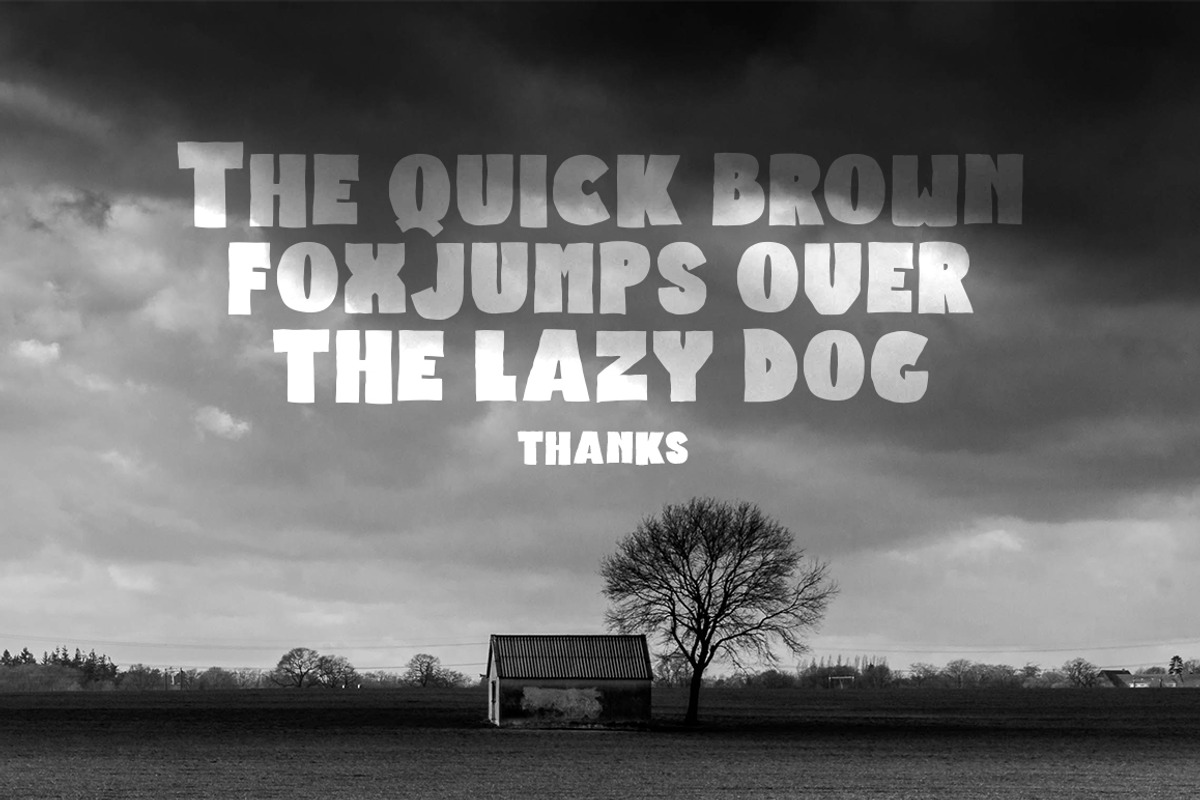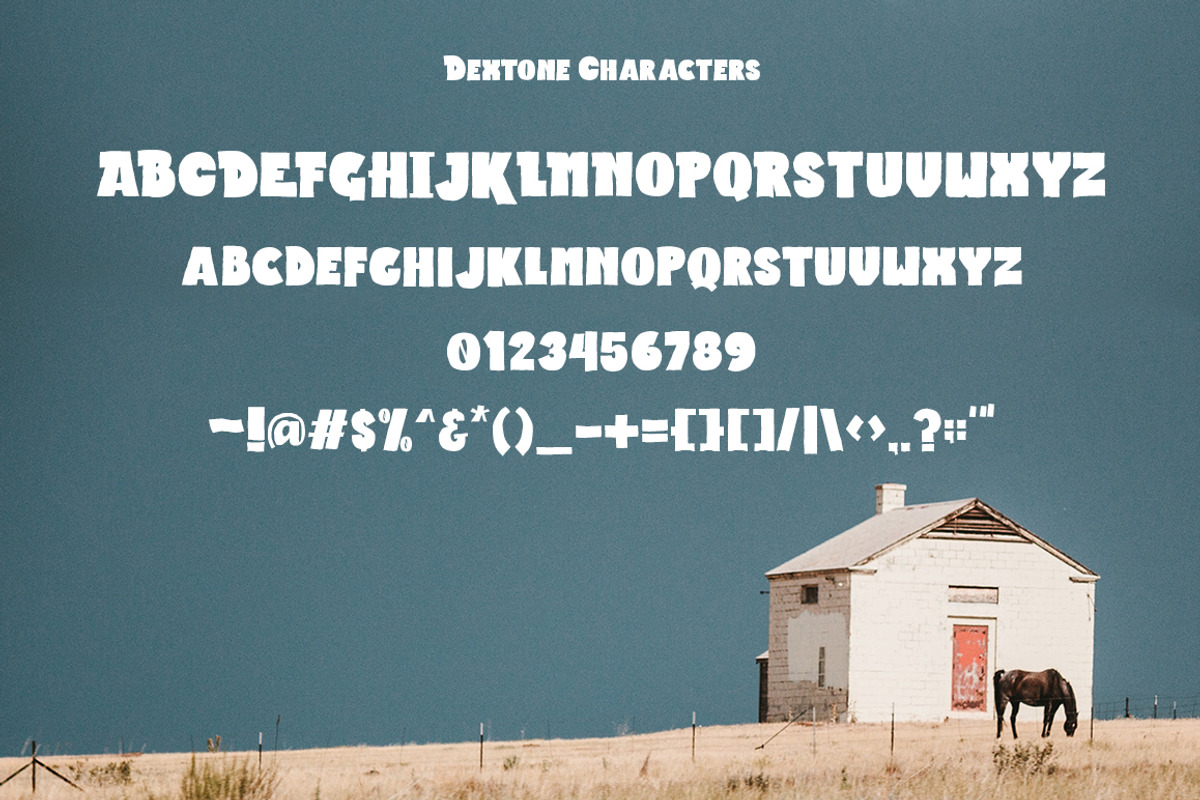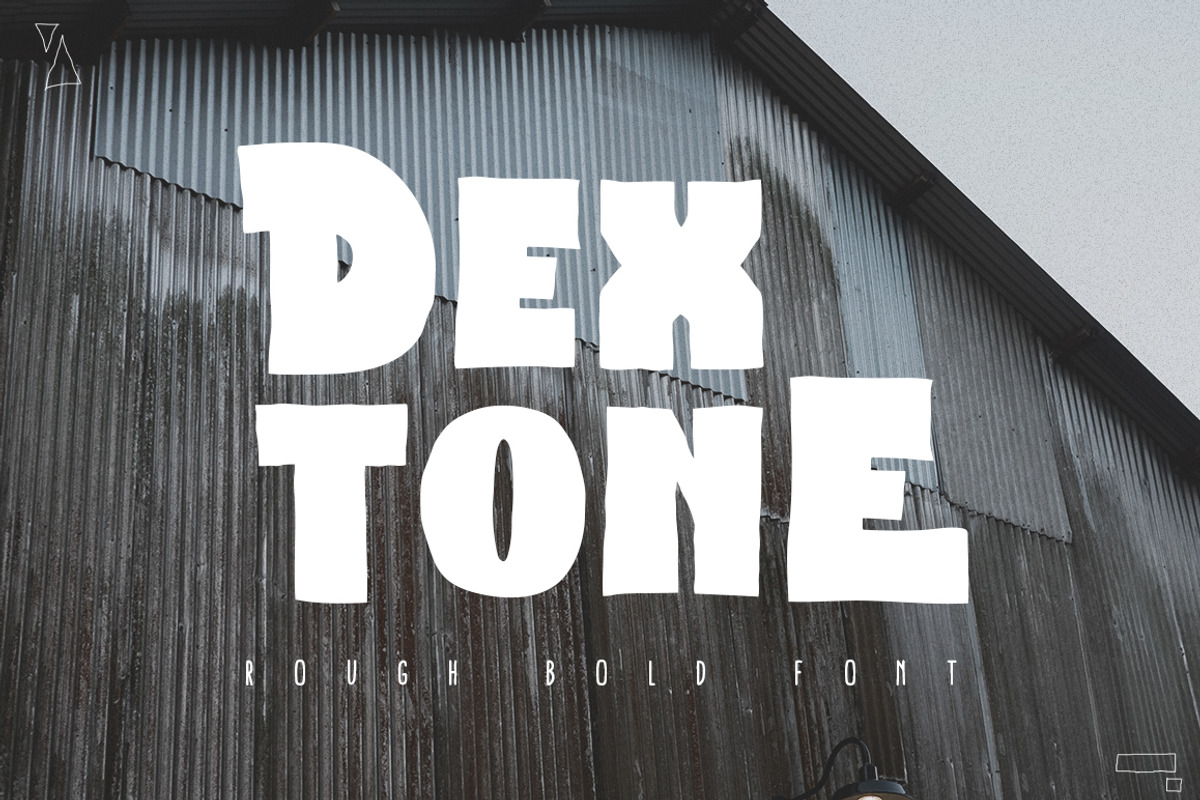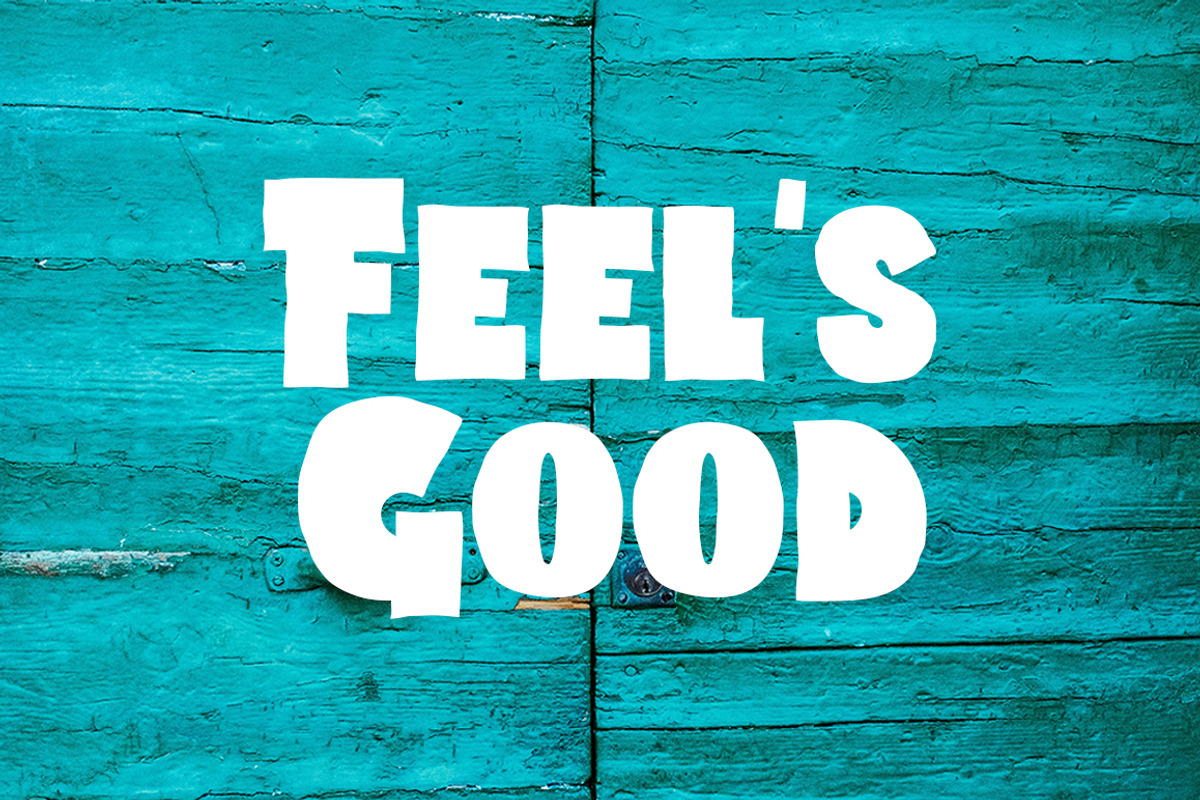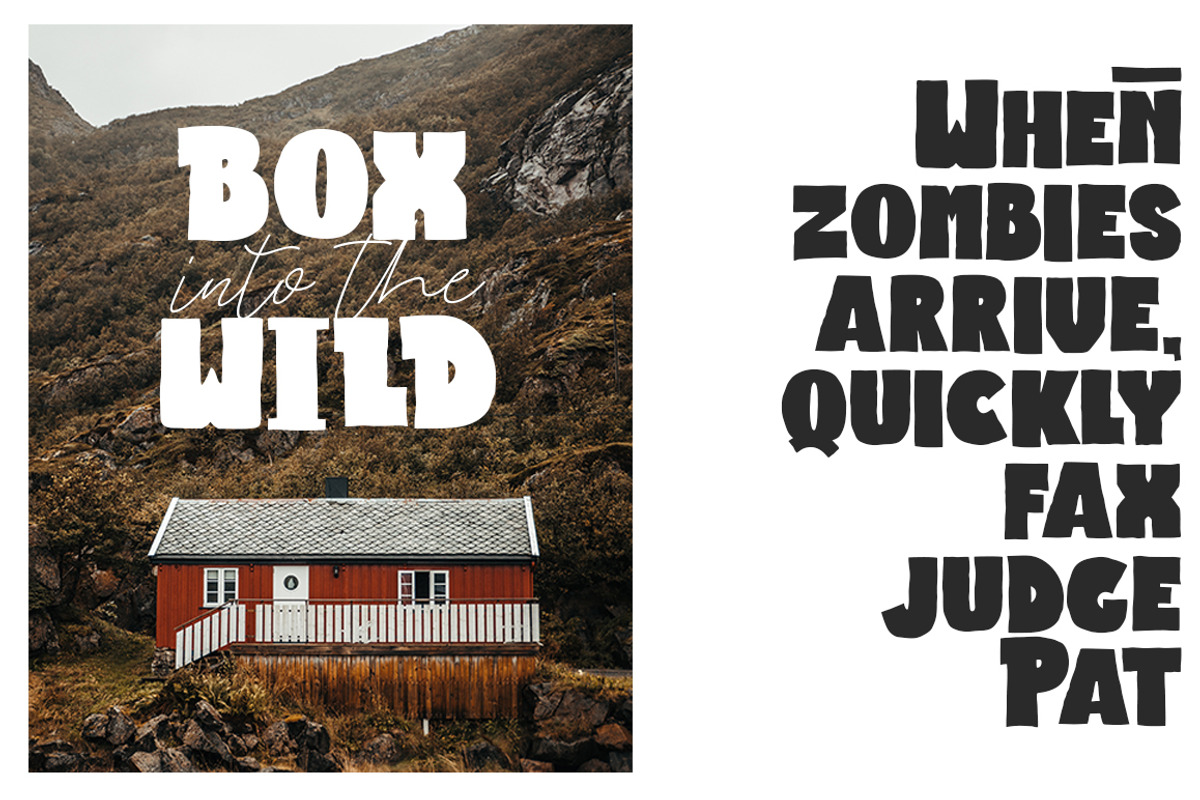
Dextone Typeface
a DEXTONE Typeface is Display Font. Can make it easier to convey the message in your design. Use for awesome display, Logo, labeling, clothing, movie sceen, poster, movie title, gigs, album covers, logos, and much more.